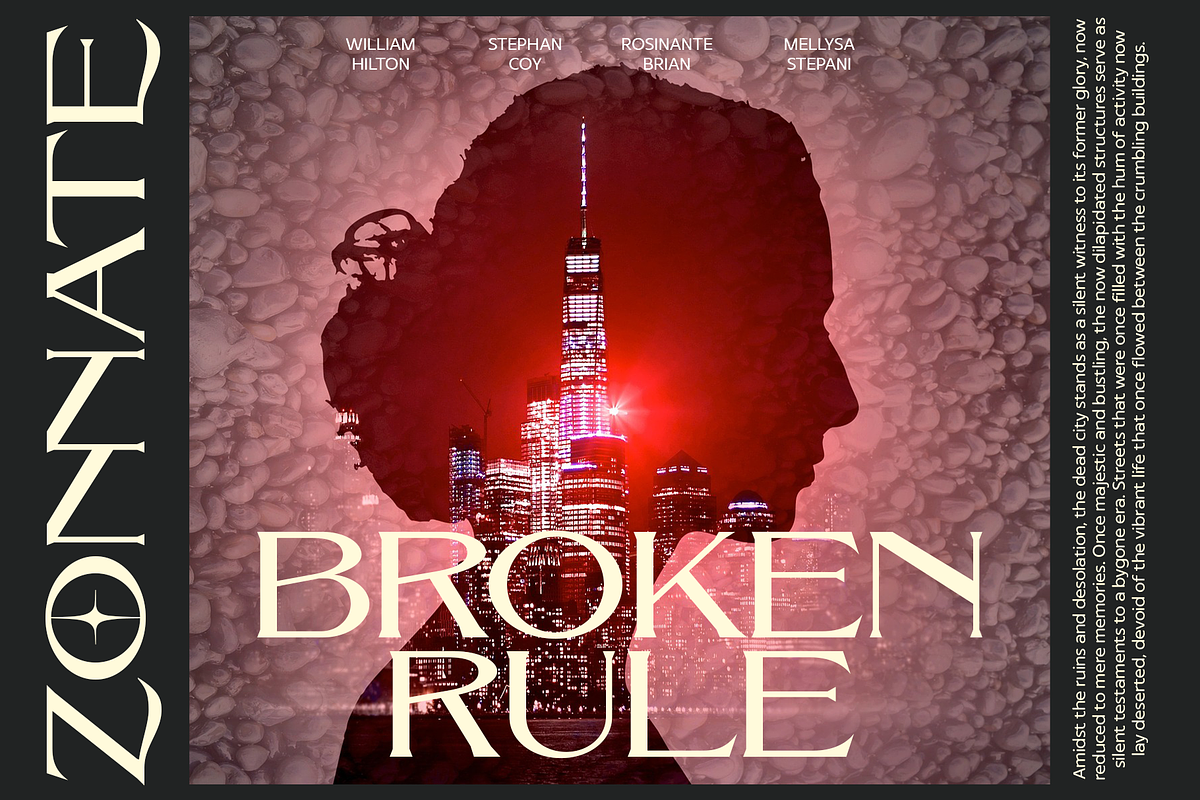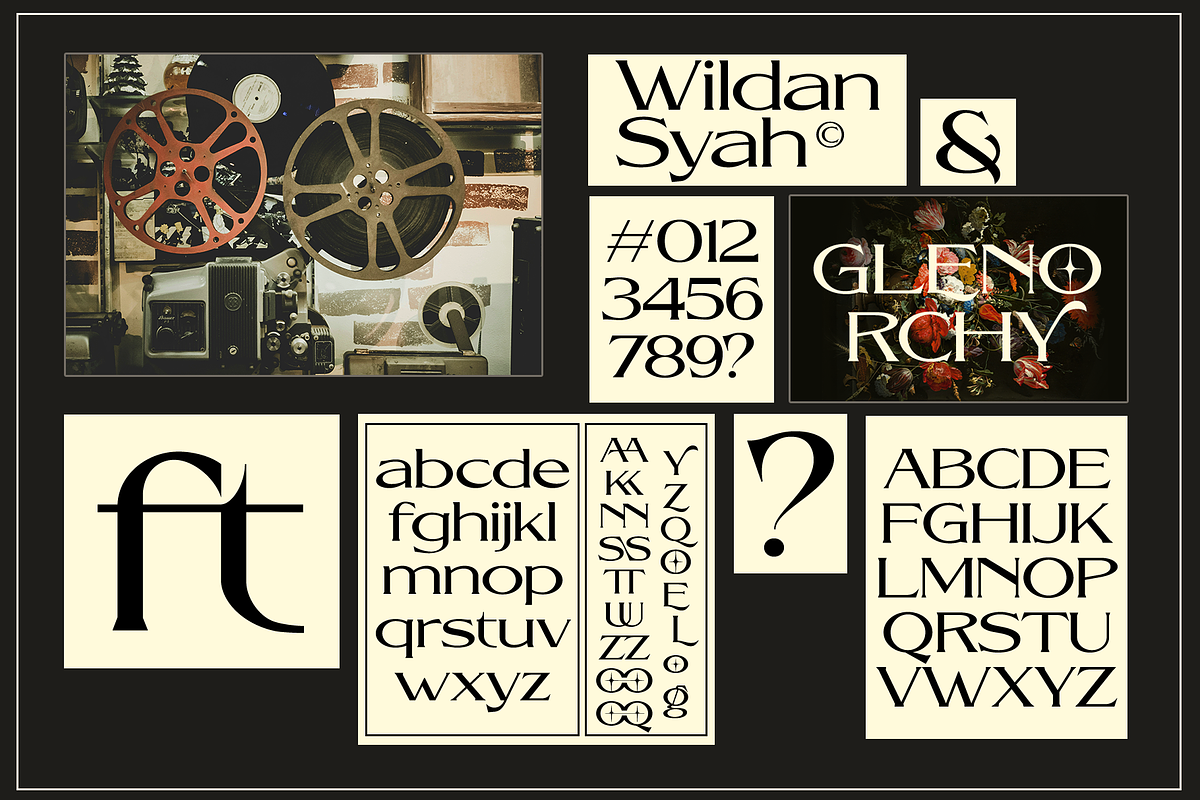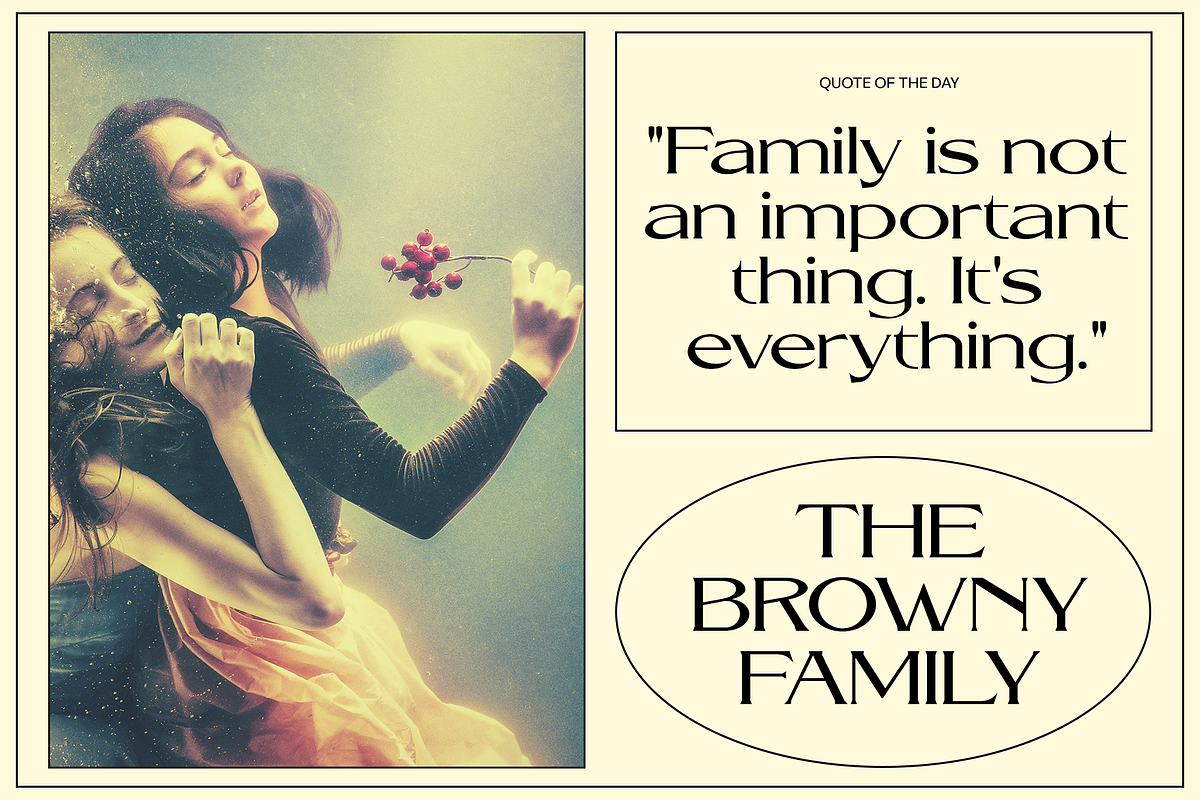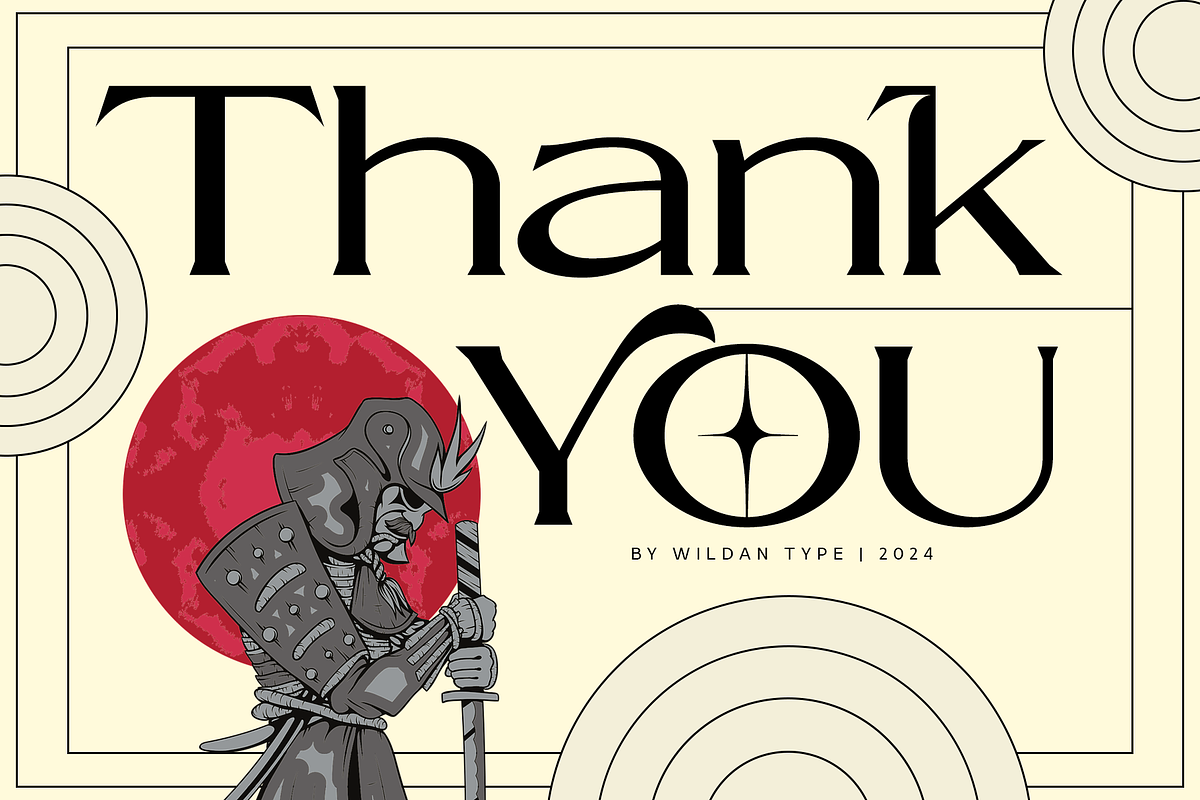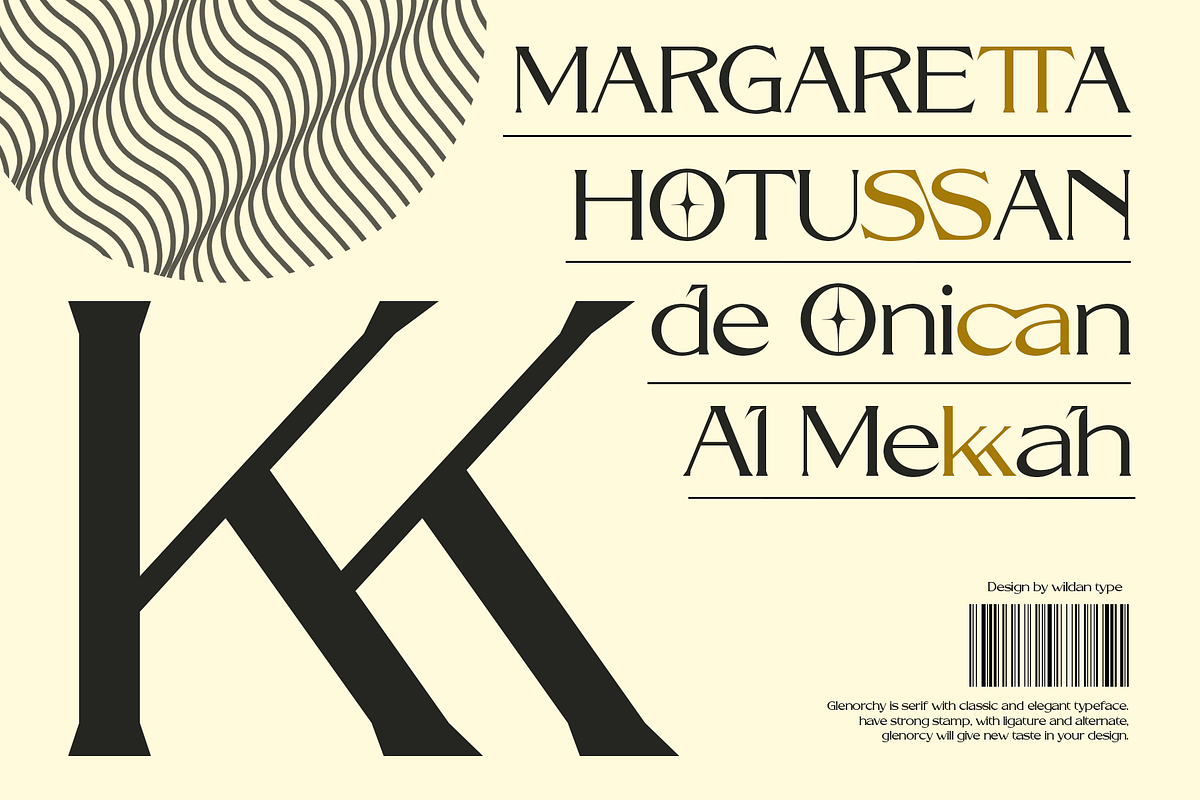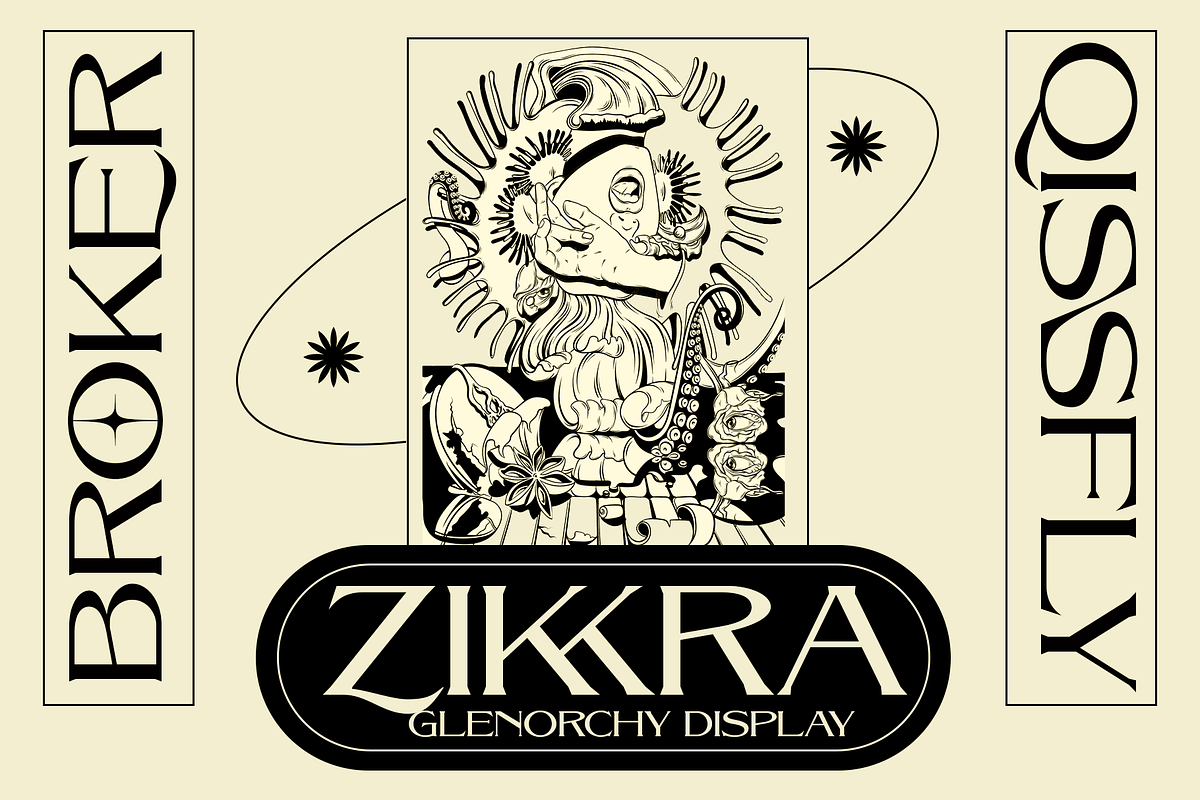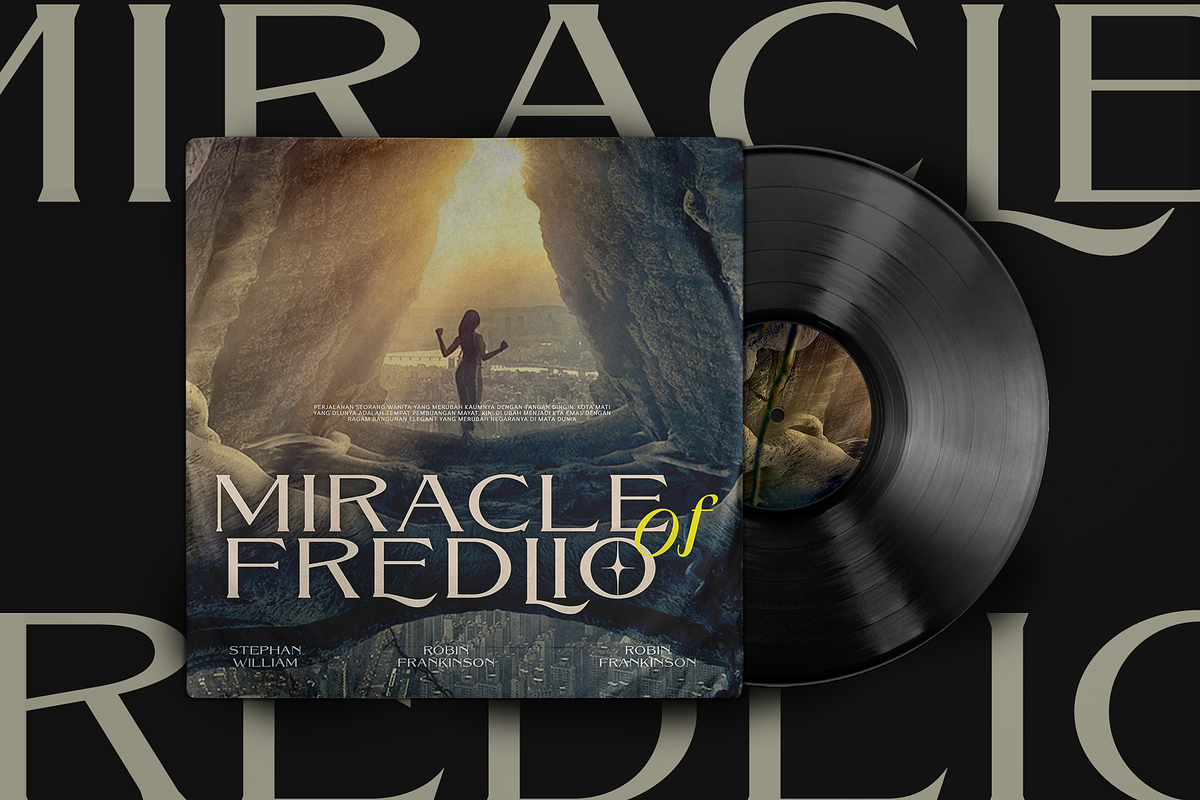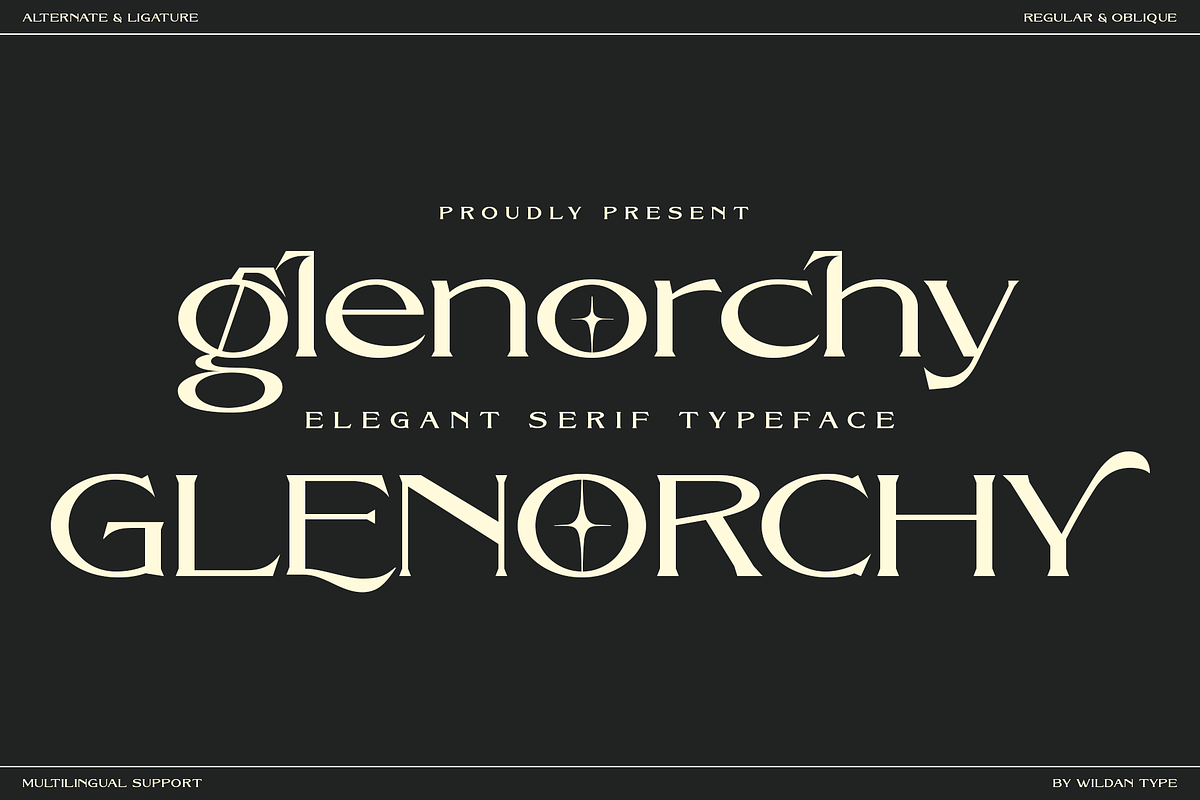
Glenorchy
Glenorchy font is inspired by a small region in the southern island of New Zealand. Like its name, this font showcases beauty with an adventurous, classic yet elegant feel. The stamp on each character blends with bold serifs, adding a strong impression to every design. It features alternate characters and ligatures that can enrich options to sharpen your design.
Character: Uppercase Lowercase number & symbol Alternate Ligature